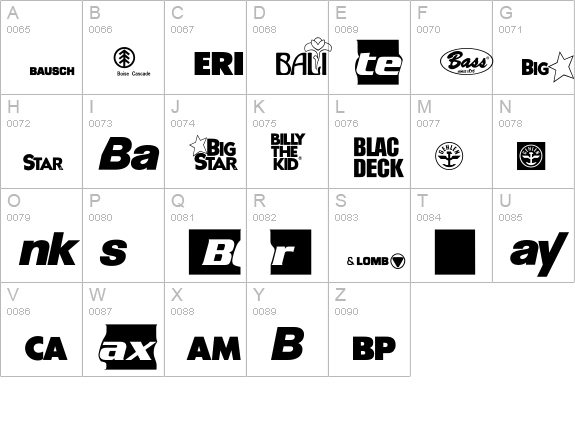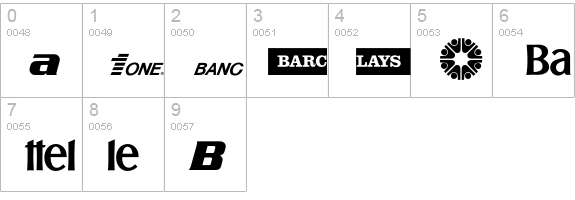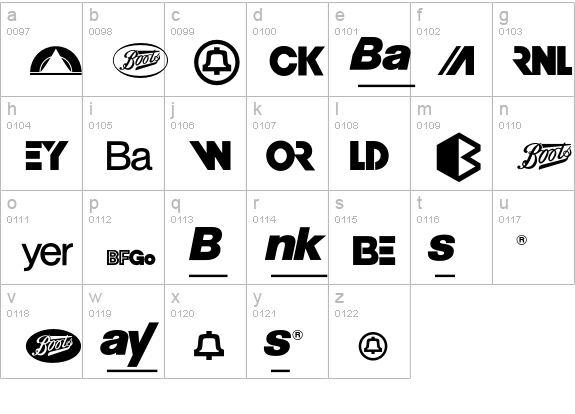
LogosCompanyP03 Font Details
Introducing LogosCompanyP03 font, a versatile and modern typeface designed to elevate your design projects. This stylish font features clean lines and a sleek appearance, making it perfect for a wide range of applications. Whether you're creating logos, branding materials, or graphic designs, LogosCompanyP03 font is sure to make a statement. Best of all, LogosCompanyP03 font is available for free download at FontsMarket.com. This means you can easily access this high-quality font without any cost, making it a valuable addition to your font collection. Don't miss out on the opportunity to enhance your designs with the sleek and professional look of LogosCompanyP03 font. Download it today and see the difference it can make in your projects.